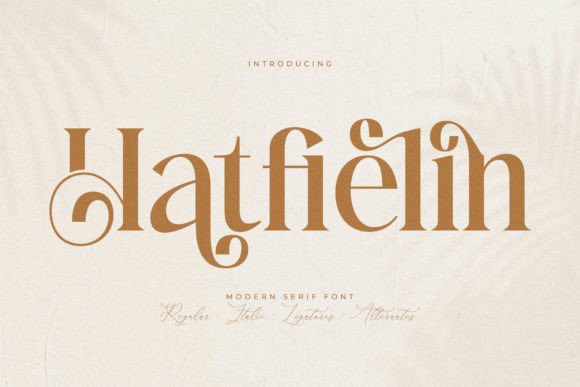
**Journey into a Realm of Elegance with Hatfielin Font: The Epitome of Sophistication for Your Creative Endeavors**
In the vast and ever-evolving universe of typography, Hatfielin Font stands as a beacon of timeless grace and unwavering elegance. This captivating creation, meticulously crafted by Storytype Studio, transcends the boundaries of conventional typefaces, ushering in a new era of visual artistry and creative expression.
Hatfielin's serif lineage is a testament to its unwavering commitment to classicism and enduring beauty. Each letterform, meticulously designed with the utmost precision, exudes a sense of sophistication and refinement that is simply unmatched. The delicate curves and graceful terminals evoke a sense of timeless elegance, reminiscent of an era when artistry and craftsmanship were held in the highest regard.
Beyond its aesthetic prowess, Hatfielin Font possesses a versatility that defies limitations. Whether you're seeking to manifest your creative vision in the realm of fashion branding, magazine layouts, apparel design, or simply yearning for a touch of elegance in your personal projects, Hatfielin seamlessly adapts to your every need. Its inherent charm shines through effortlessly, effortlessly elevating each design concept to new heights of sophistication.
**Unleash Your Creativity with Hatfielin Font:**
- **Fashion Forward:** Elevate your fashion brand's identity with Hatfielin's timeless elegance, crafting a logo that exudes luxury and exclusivity.
- **Magazines That Mesmerize:** Create magazine layouts that captivate readers, transporting them to a world of sophistication with Hatfielin's refined aesthetics.
- **Apparel Adorned with Elegance:** Design apparel that speaks to the discerning eye, using Hatfielin to create lettering and quotes that elevate your designs to the realm of haute couture.
- **Inspire and Enchant with Quotes:** Transform ordinary quotes into works of art with Hatfielin's graceful lines and exquisite details, leaving a lasting impression on your audience.
- **Unleash Your Creative Genius:** Venture beyond traditional boundaries, allowing Hatfielin to spark your imagination and guide you towards uncharted creative territories.
With Hatfielin Font as your creative companion, you embark on a journey where elegance, versatility, and endless possibilities converge. Embrace the allure of Hatfielin and witness the transformation of your creative vision into a masterpiece of timeless beauty.